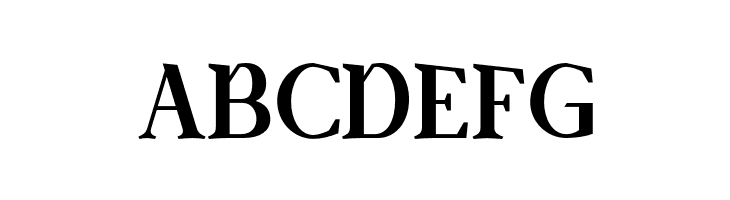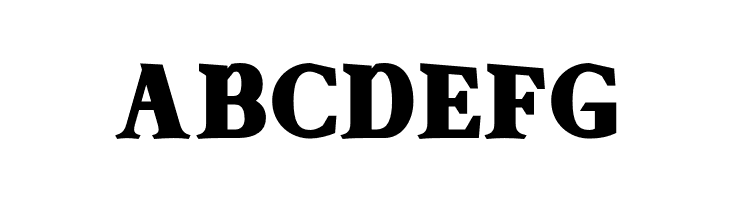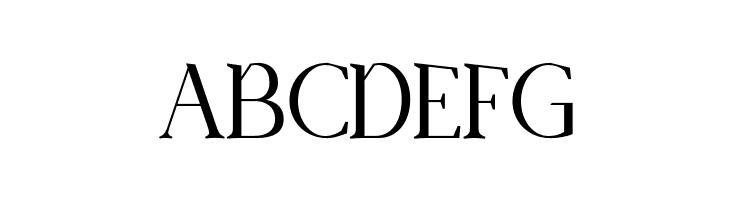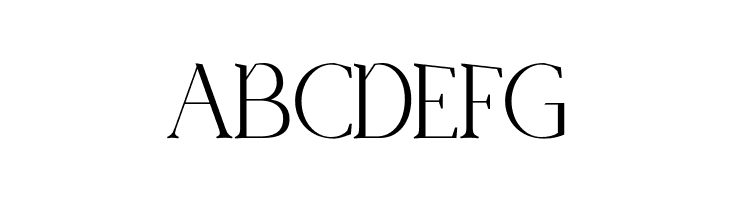
SenzaBella Black Font
A bold, high-contrast serif font with pronounced serifs and a dramatic style.
SenzaBella Thin Font
A thin, elegant serif font with high contrast and refined details.
SenzaBella ExtraBold Font
A bold, high-contrast serif font with a dramatic and modern style.
SenzaBella Light Font
A refined and elegant font with thin strokes and subtle curves, perfect for sophisticated designs.
SenzaBella Bold Font
A bold serif font with sharp serifs and a modern classic style.
SenzaBella Regular Font
A modern serif font with high contrast and sharp serifs, blending elegance with contemporary style.